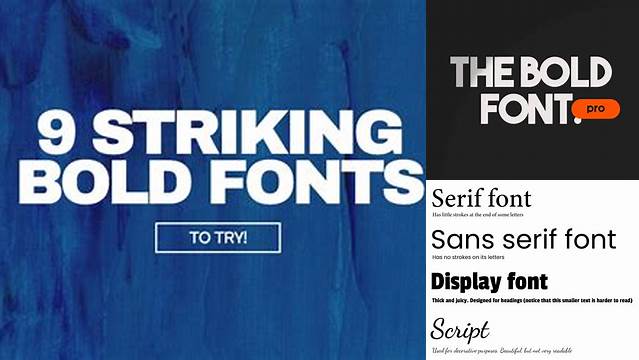
Best Bold Fonts For Websites
Hey guys, ever wonder how to make your website stand out from the crowd? Well, one of the secret weapons is using bold fonts! Seriously, choosing the right bold fonts can make a huge difference in how your website looks and feels. In this article, we're diving deep into the best bold fonts for websites, and giving you all the juicy details. We'll explore how to pick the perfect fonts, tips on using them, and the impact they can have on your site’s overall success. So, get ready to level up your website’s design game!
Why Bold Fonts Matter for Website Design
Alright, so you might be thinking, "Why all the fuss about bold fonts?" Well, let me tell you, they're super important. Think of bold fonts as the superheroes of typography. They grab attention, emphasize key information, and make your content way more readable. When you use bold fonts strategically, you can guide your visitors' eyes to the most important parts of your website, like headlines, calls to action, and key points in your articles. This not only makes your content easier to digest but also helps to improve your site's user experience (UX). A good UX means visitors stick around longer, engage more, and are more likely to take the actions you want them to take, like making a purchase or signing up for your newsletter. The proper use of bold text also helps in improving your SEO. Search engines often prioritize pages with well-structured content and clear headings, and bold fonts play a huge role in making sure your headings and key phrases stand out. If you are looking to revamp the website, you need to focus on the readability and the look, bold fonts can give you the impact that you are looking for. By ensuring that your design is easy to navigate and visually appealing, you are setting your website up for a lot of success.
Let's get real for a sec: the internet is a noisy place. People are bombarded with information, and you only have a few seconds to grab their attention. Bold fonts are like a visual shout that helps you cut through the noise. They're perfect for making your website content more scannable. You'll be creating a more memorable brand image, and increase the likelihood of customers making a decision that benefits you. This is why it is important to find the right font that matches the theme of your site. You want to make sure the font is appealing to the eye so it does not appear to be too much. When people are able to easily understand the content they are seeing, they are more likely to come back. So basically, using bold fonts smartly can lead to better engagement, improved user experience, and ultimately, more conversions. It's a win-win-win! When looking to make a website, it is important to consider the layout, and what fonts you want to use. This will make it easy for you to bring the vision of your website to life.
Top Bold Fonts to Consider for Your Website
Now that we know why bold fonts are so awesome, let’s dive into the best ones to use on your website! There are tons of options out there, but here are a few of my favorites, along with some tips on when and how to use them:
Roboto: This font is a total classic for a reason. It's clean, modern, and super versatile. The bold version of Roboto is excellent for headlines, subheadings, and calls to action. It's easy to read on any screen size and it gives your site a professional and approachable vibe. Think of it as the reliable friend of the font world – always there to make your content look good.
Montserrat: If you want a font that’s both stylish and functional, Montserrat is a great choice. It has a geometric design that looks great in both headings and body text, even when it is bold. The bold version of Montserrat is perfect for making a statement, but it’s still easy to read and won’t overwhelm your design. It's a great option if you want to give your website a modern yet friendly feel. When choosing a font, it is important to know if you are trying to get the user to take action. This can be done with the use of a bold font. Using a bold font will catch the users attention and make them take the action you are wanting them to take. It is important to make sure that you know which font you want to use, this will make sure your website is well designed.
Open Sans: Open Sans is another popular choice, and it’s a total workhorse. This font is known for its readability and its versatility, making it a solid choice for both headings and body text. The bold version is especially great for highlighting key information without being too in-your-face. Open Sans is a great choice if you want a font that’s easy on the eyes and helps your content shine. Make sure that the font that you choose can be seen from a variety of devices. You want to make sure that the font can be clearly read from any device. This will allow all users to see the website clearly.
Lato: This is another versatile sans-serif font that provides a clean and modern look. It is a popular choice for both body text and headings. The bold version of Lato is strong and readable, so it works well for making key points stand out. Lato has a friendly and approachable feel, which makes it a great choice for a wide range of websites.
Bebas Neue: If you want a bold font that makes a statement, Bebas Neue is the way to go. It’s a tall, all-caps font that's ideal for headlines and titles. It's definitely a statement maker, so use it sparingly to avoid overwhelming your visitors. If you’re looking to make a bold impression, Bebas Neue is a great option. When creating a website it is important to keep in mind how the font will look to the user. It is important to keep the users engaged and interested. If you want the user to get the information, a bold font will help in many ways.
How to Use Bold Fonts Effectively
Okay, so you’ve got some awesome font choices in mind. Now, let’s talk about how to use them effectively. Here are some tips and tricks to make sure your bold fonts work for you:
Use Bold Sparingly: Don't go overboard! Too much bold text can be overwhelming and make your website look cluttered. Use it strategically to highlight key phrases, headlines, and calls to action. Think of it as adding a spice to your meal. You don't want to overdo it and ruin the flavor. You want to use bold fonts that do not take over the website and keep the user from enjoying the content.
Contrast is Key: Make sure your bold fonts have enough contrast with the background color. Dark text on a light background, or vice versa, is generally best for readability. Avoid using bold fonts in colors that blend into the background; it defeats the purpose of making them stand out. Make sure the font can be easily read and the user does not have to struggle to understand the content. The goal of your website is to give information to users, so you want them to easily understand what you are talking about.
Conclusion: Supercharge Your Website with Bold Fonts
So, there you have it, guys! Using bold fonts can be a game-changer for your website. They grab attention, improve readability, and can even give your SEO a boost. Remember to choose the right fonts, use them strategically, and always think about the overall user experience. By following these tips, you'll be well on your way to creating a website that not only looks great but also performs amazingly. Now go out there and make your website pop! When creating a website, make sure you consider all of the tips listed in this article. It will make sure that you are creating a high quality website.